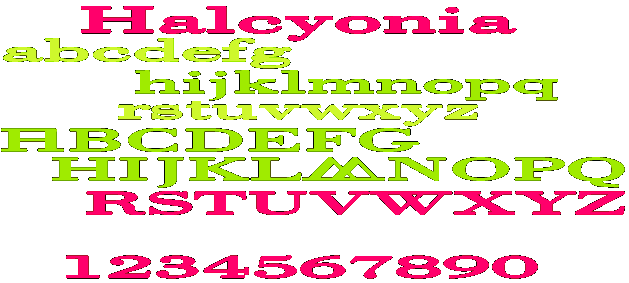
This is a brand new version (Dec 97). All demons have been exorcised. It was crashing in Photoshop for some reason but it's fine now. I cleaned it up a bit more and made the spacing a bit nicer.
It's based on Bodoni as some jerk pointed out. It's thickened up and all the corners are rounded off. Needless to say he didn't send me a donation.